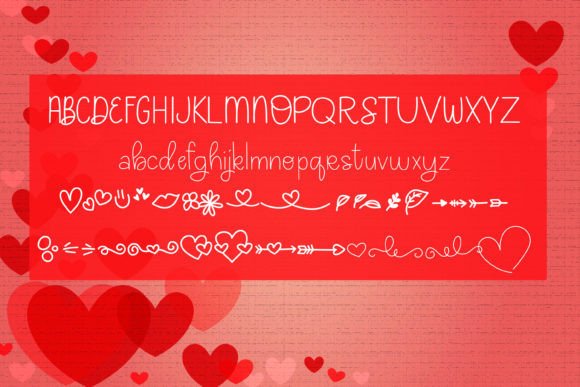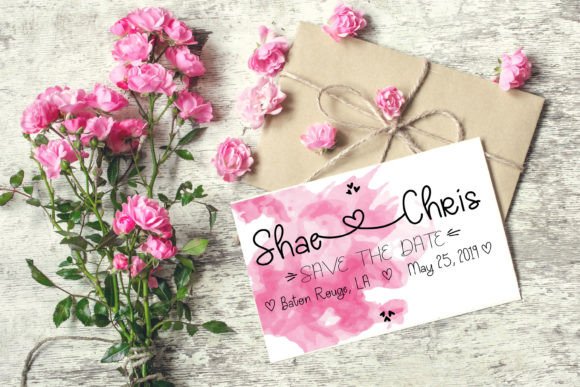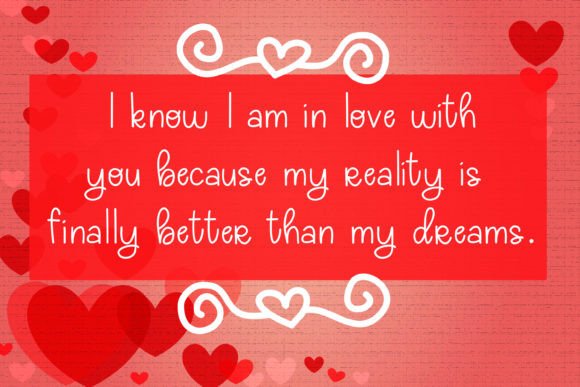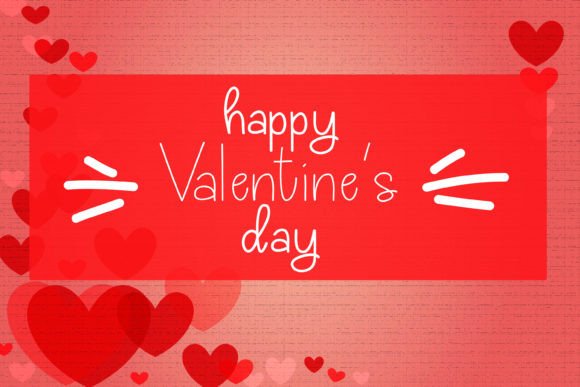
Karma Loo Font
Karma Loo Handwritten Font – Cute and Girly Typeface
The Karma Loo Handwritten Font is a sweet and playful script typeface designed to bring charm and personality to your creative projects. With its girly handwritten style and adorable doodles, it is the perfect choice for designs that need a touch of fun and love. Whether you are creating Valentine’s Day cards, cute notes, or stylish logos, this font delivers beauty and creativity.
A Handwritten Script with Girly Charm
The Karma Loo Handwritten Font blends smooth handwritten curves with a playful girly vibe. Its letters flow gracefully, creating an authentic look, while its doodles add extra personality. Because of this, it adapts well to many creative uses, from stationery to branding projects.
Perfect for Valentine’s Cards and Notes
One of the most popular uses of the Karma Loo Handwritten Font is in Valentine’s Day projects. Its sweet strokes and decorative doodles make greeting cards and love notes more special. At the same time, it works beautifully in personal planners, logos, and invitations, giving them a romantic handwritten flair.
The Karma Loo Handwritten Font adapts seamlessly to a wide variety of projects. From product packaging and social media graphics to doodle-inspired crafts and decorative posters, it provides a handwritten look that feels personal and unique. Its dual weights and extra doodles add even more flexibility to creative designs.
Why Designers Love Karma Loo Font
Designers love the Karma Loo HandwrittenFont because it combines fun, girly charm with usability. Its versatile features, including two weights and over 30 doodles, make it more than just a font—it becomes a creative toolkit. This makes it a favorite among crafters and digital designers alike.
In summary, the Karma Loo HandwrittenFont is a cute, girly, and versatile script typeface. With its playful handwritten strokes, included doodles, and wide usability, it is perfect for Valentine’s cards, logos, invitations, and creative notes. Don’t miss the chance to download Karma Loo HandwrittenFont and give your projects a sweet, romantic touch.